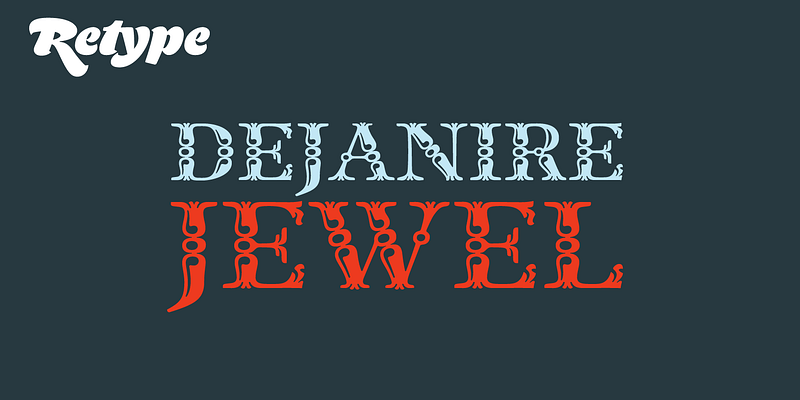
Dejanire Jewel Font Free Download is a decorative and expressive display typeface that adds a touch of ornamental elegance to your typography. A companion to the Dejanire font family, Jewel is infused with intricate flair—featuring stylized terminals, artistic flourishes, and high contrast that make it ideal for headlines, luxury branding, invitations, and editorial highlights.
Designed to shine in large sizes, Dejanire Jewel Font brings an air of sophistication and uniqueness to visual storytelling. It’s best used where character and visual impact matter most—on book covers, posters, fashion layouts, or identity design where a sense of drama and elegance is key.